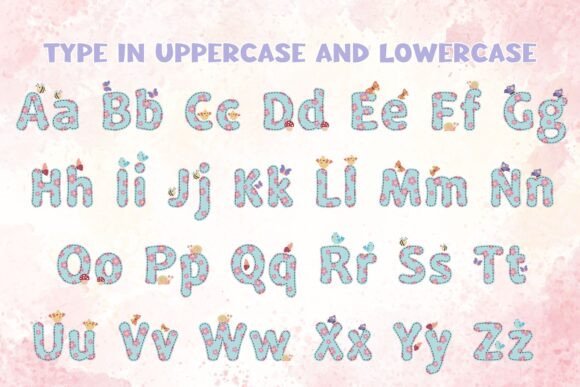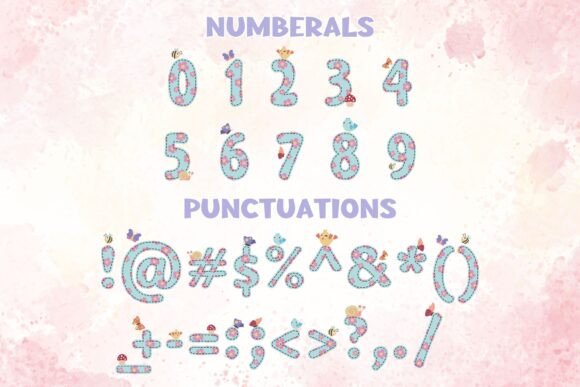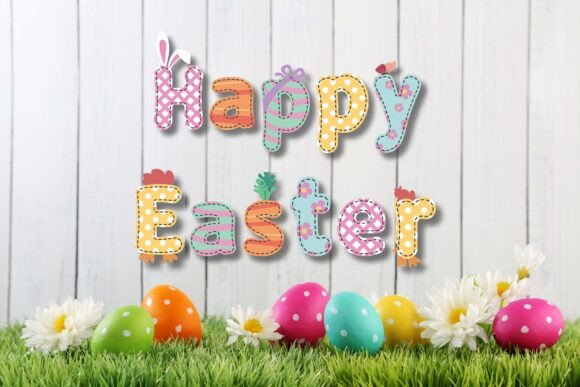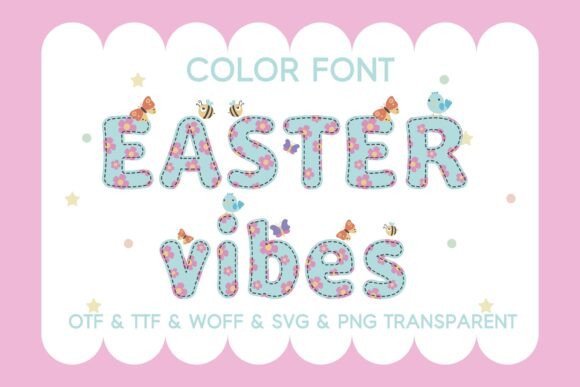
Easter Vibes Font: Elevate Your Designs with a Festive Touch
Are you looking for a font that captures the essence of Easter and adds a playful touch to your designs? Look no further than Easter Vibes, a delightful color font that’s perfect for a wide range of projects. In this article, we’ll introduce you to Easter Vibes, explore its features, and show you how it can transform your designs into mesmerizing masterpieces.
Introducing Easter Vibes Font
Key Features of Easter Vibes Font
- Color font technology: Easter Vibes utilizes Opentype-SVG color font technology, allowing for vibrant and detailed designs.
Easter Vibes is designed with designers and crafters in mind. Whether you’re creating:
- T-shirt designs: Add a playful Easter touch to your apparel designs.
- Mug designs: Create fun and colorful mugs perfect for Easter gifts or promotions.
- Digital designs: Incorporate Easter Vibes into your digital art, social media graphics, or blog posts.
- Crafts: Use Easter Vibes to create unique and personalized Easter-themed crafts.
- Cards: Design beautiful Easter cards with a personal touch.
Tips for Using Easter Vibes Font
To get the most out of Easter Vibes, consider the following tips:
- Experiment with colors: Take advantage of the color font technology to create vibrant and eye-catching designs.
- Mix and match: Combine Easter Vibes with other fonts or design elements to create unique and visually appealing compositions.